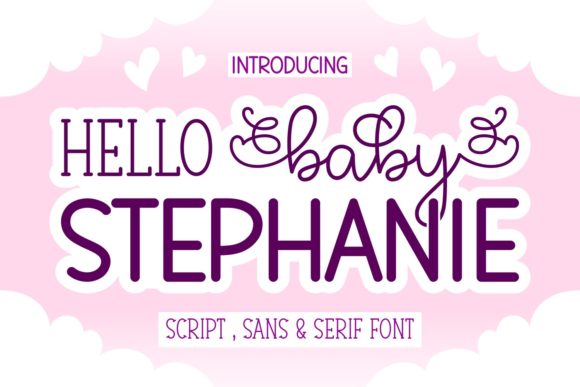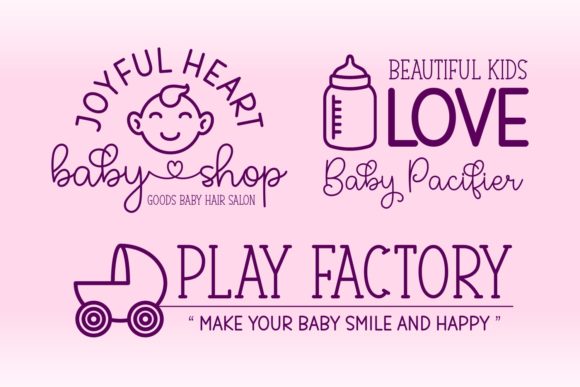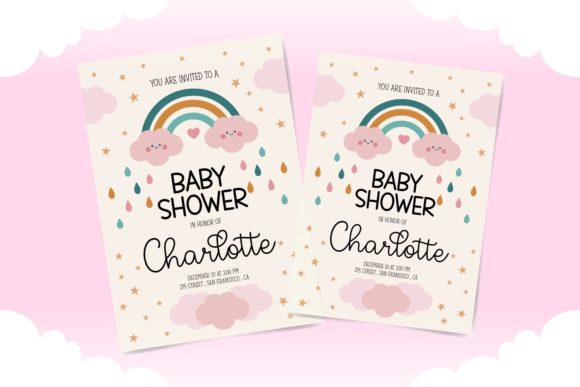
About Hello Baby Stephanie Font
Hello Baby Stephanie is a charming and versatile trio font that combines the elegance of a serif, the modern simplicity of a sans serif, and the personal touch of a handwritten style. This font set is thoughtfully crafted with meticulous attention to detail, making it a wonderful addition to your font library.
The serif font in Hello Baby Stephanie exudes a sense of sophistication and timeless elegance. Its well-defined letterforms and clean lines make it ideal for creating professional and refined designs. Whether you’re working on editorial layouts, branding materials, or any project that requires a touch of class, the serif font will elevate your designs with its classic appeal.
The sans serif font in Hello Baby Stephanie offers a modern and minimalistic option. With its clean and geometric shapes, this font is perfect for creating contemporary designs that demand simplicity and clarity. Whether you’re designing for digital platforms, packaging, or branding materials, the sans serif font provides a clean and sleek look that is both versatile and visually appealing.
The handwritten font in Hello Baby Stephanie adds a personal and unique touch to your designs. With its natural and imperfect strokes, this font brings a sense of authenticity and warmth to any project. It is perfect for adding a personal message, creating custom logos, or adding a handcrafted feel to your designs.
One of the standout features of Hello Baby Stephanie is its PUA encoding, which allows you to access all the glyphs and swashes with ease. This means you have the freedom to customize and enhance your designs with the wide range of alternate characters, ligatures, and swashes available in the font set. This feature adds versatility and creative possibilities to your design process.
Hello Baby Stephanie is suitable for a variety of design projects. It can be used for logo design, branding materials, invitations, social media graphics, packaging, and much more. With its trio of fonts, you have the flexibility to mix and match styles to create unique and cohesive designs.
In summary, Hello Baby Stephanie is a lovely and versatile trio font that includes a serif, sans serif, and handwritten style. With its neat craftsmanship, attention to detail, and PUA encoding, this font set offers you a wide range of creative possibilities. Whether you’re aiming for a classic, modern, or personal touch in your designs, Hello Baby Stephanie is a delightful choice that will add elegance, simplicity, and uniqueness to your projects.